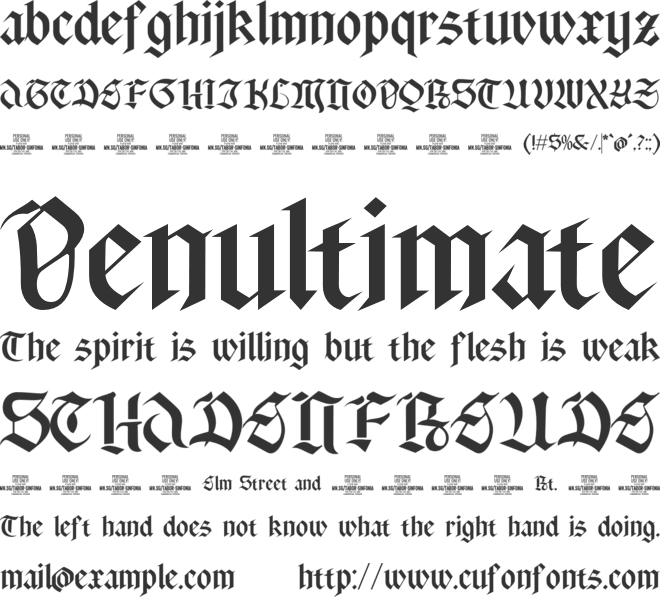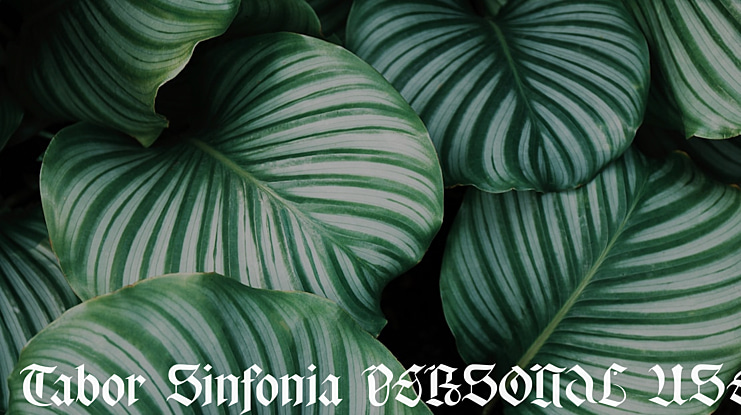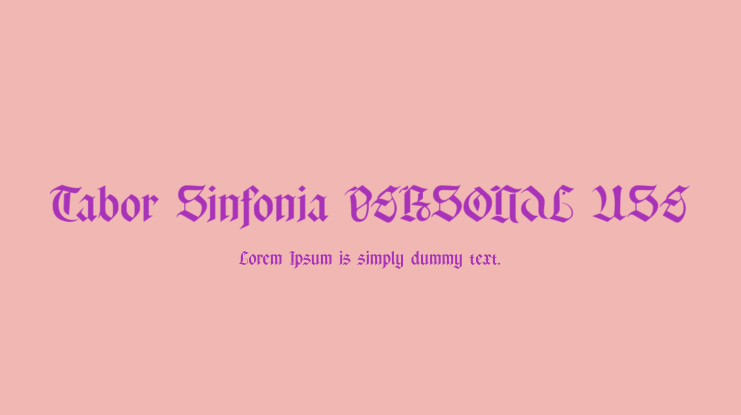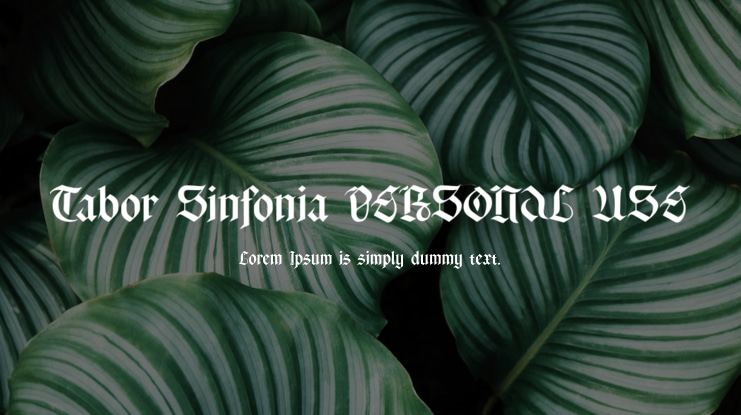
Tabor Sinfonia PERSONAL USE Font
Tabor Sinfonia is a typeface that combines the timeless elegance of Gothic script with the rhythmic beauty and harmony of music.